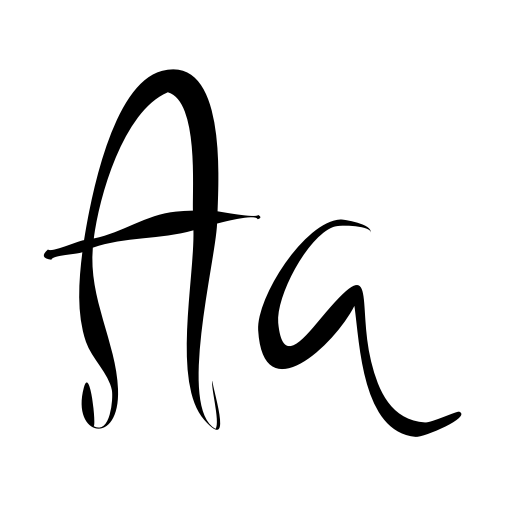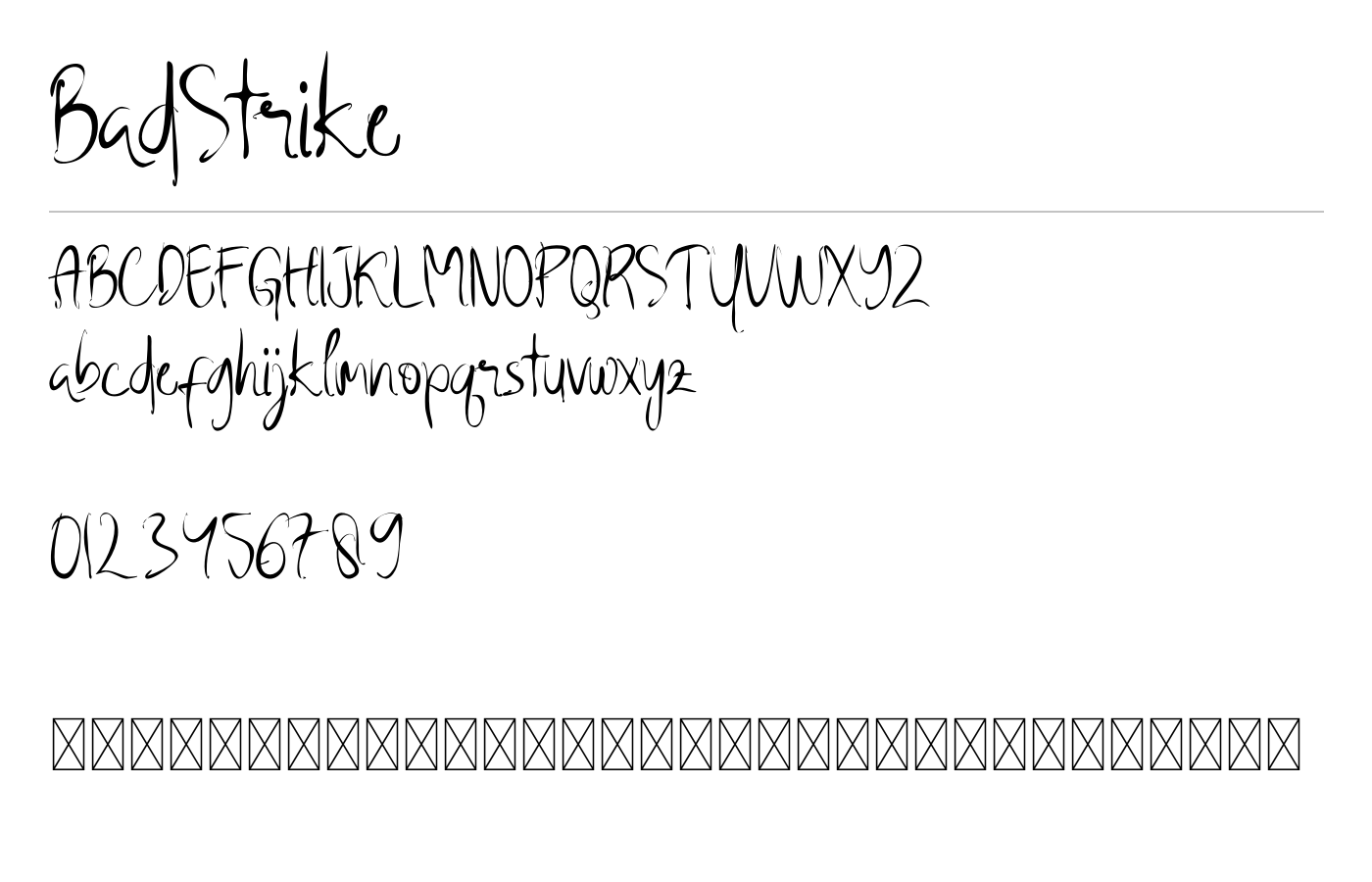
BadStrike is a quirky handwritten font with thin, irregular strokes that give it a playful, slightly whimsical character. Its tall, narrow letterforms and unique shapes make it perfect for creative projects that need a personal, casual touch, such as artistic logos, invitations, or informal branding. This font works best in display sizes where its distinctive style can shine without sacrificing readability.
BadStrike Font
About BadStrike Font